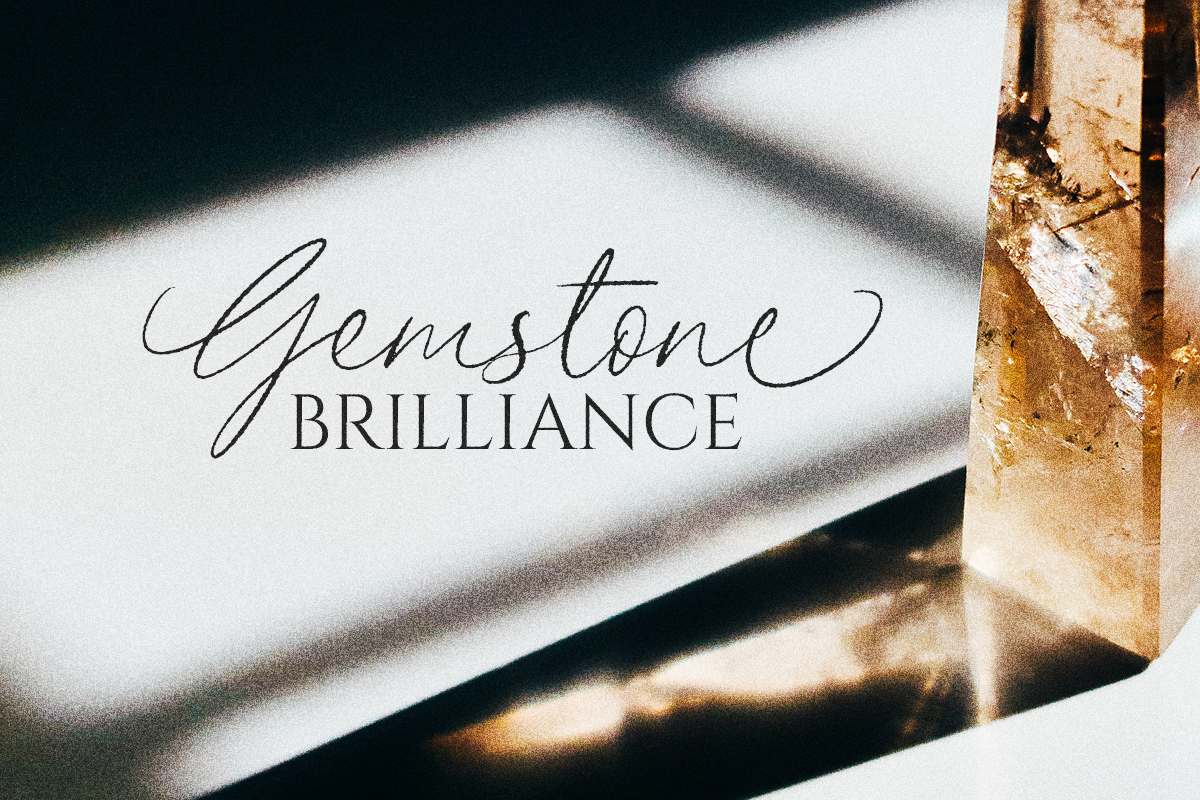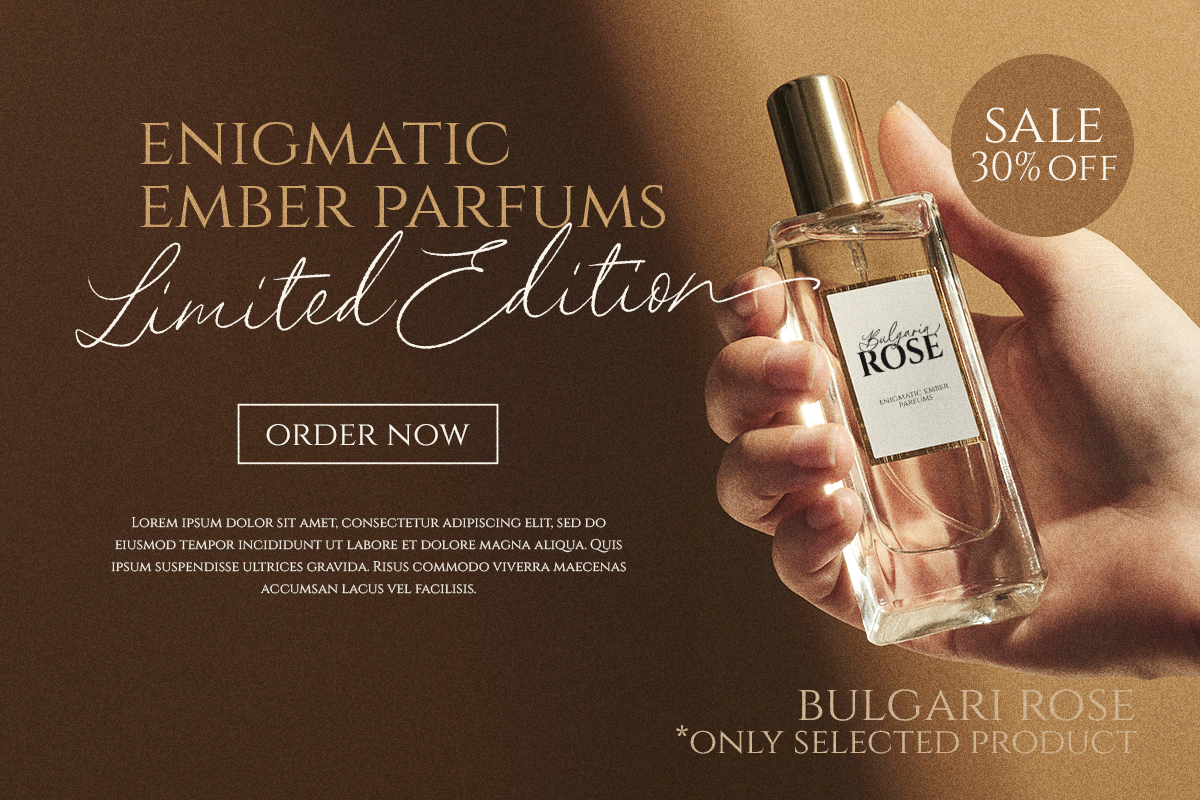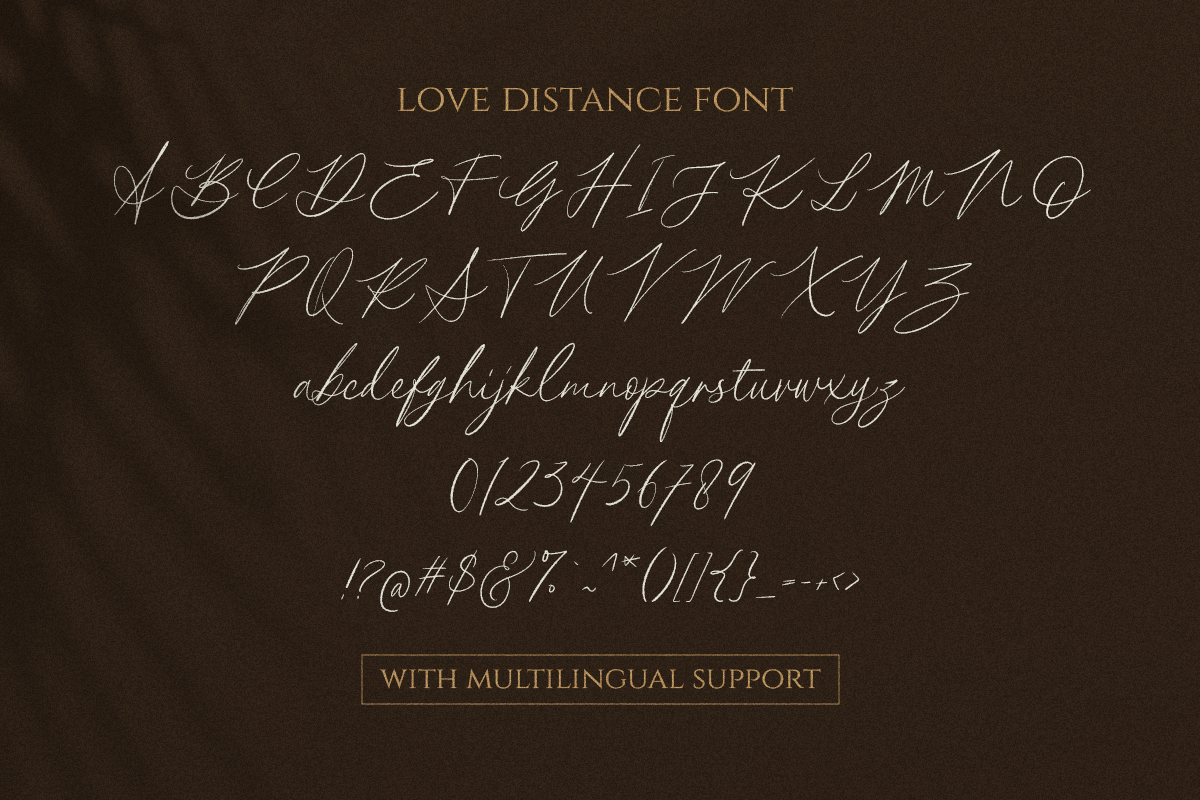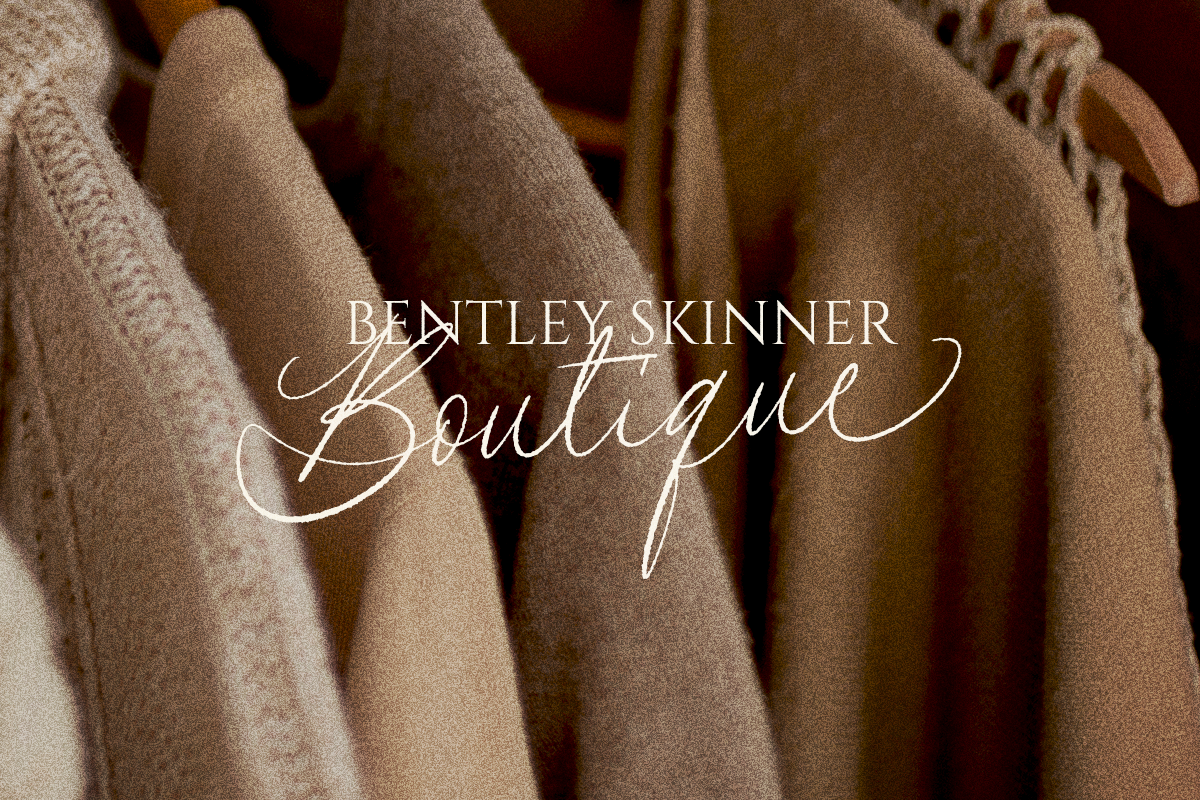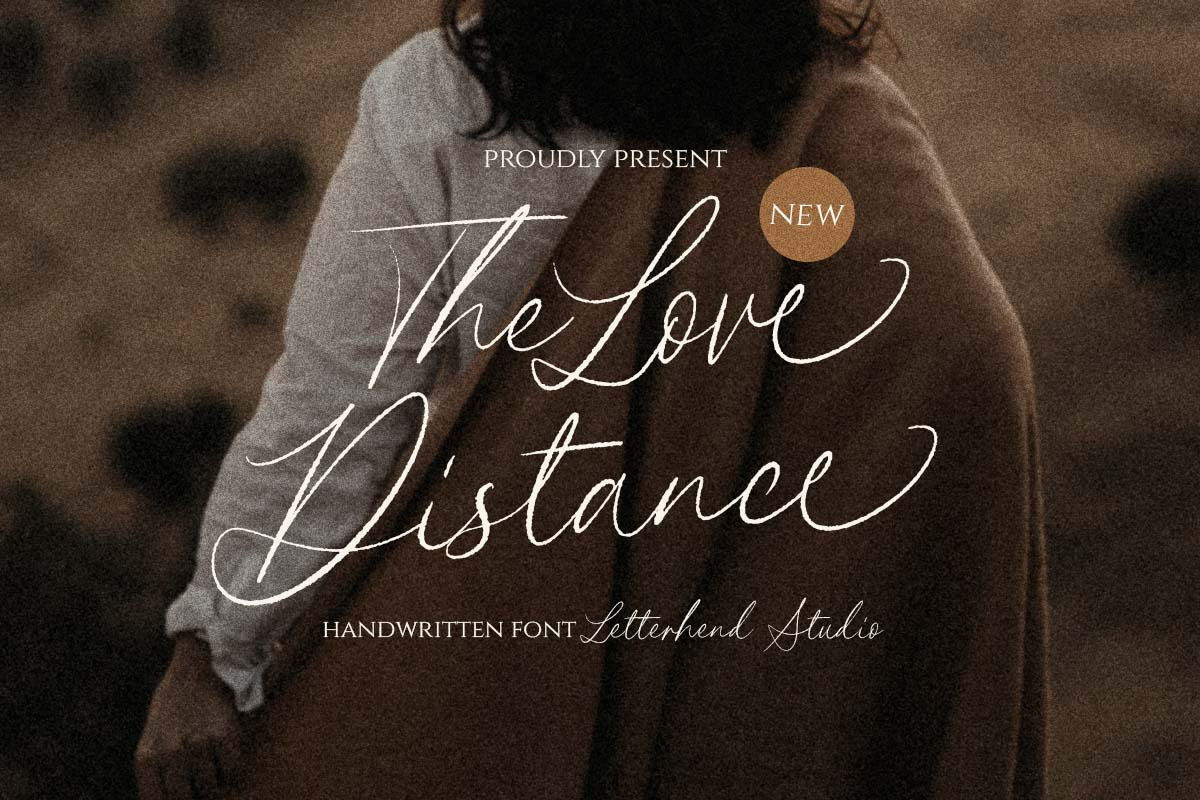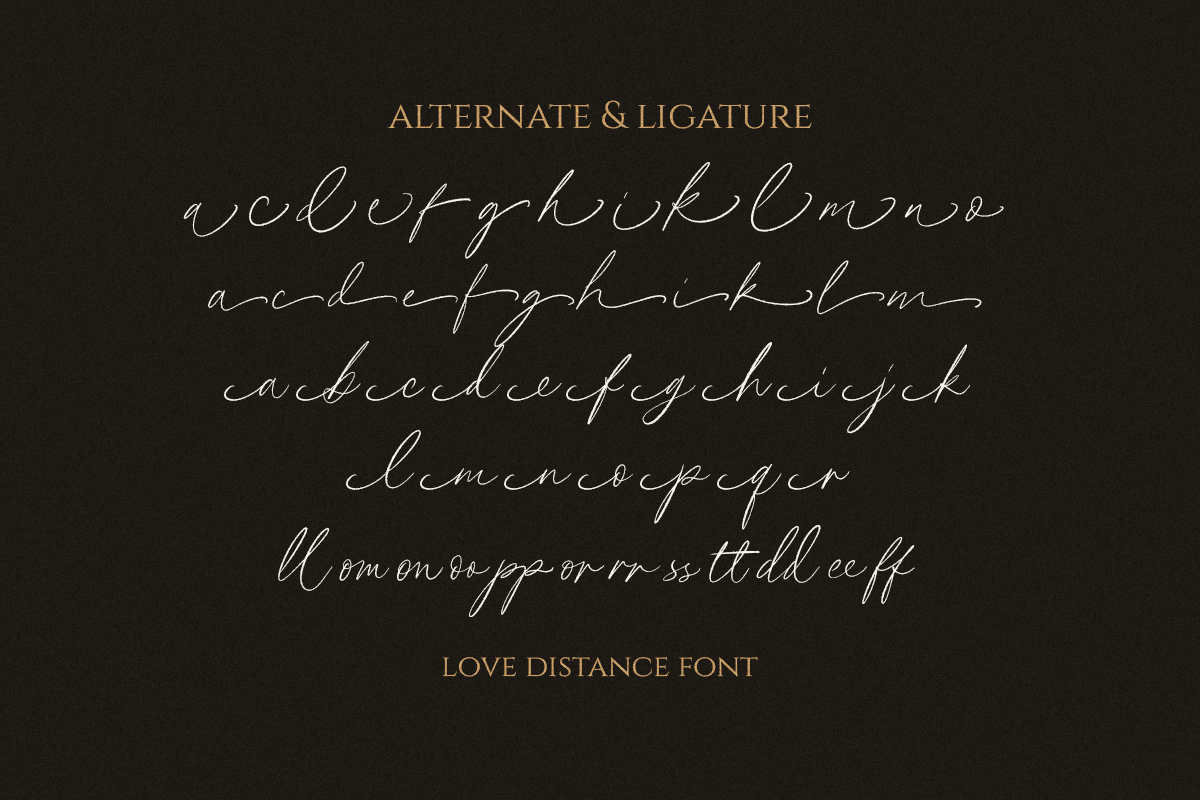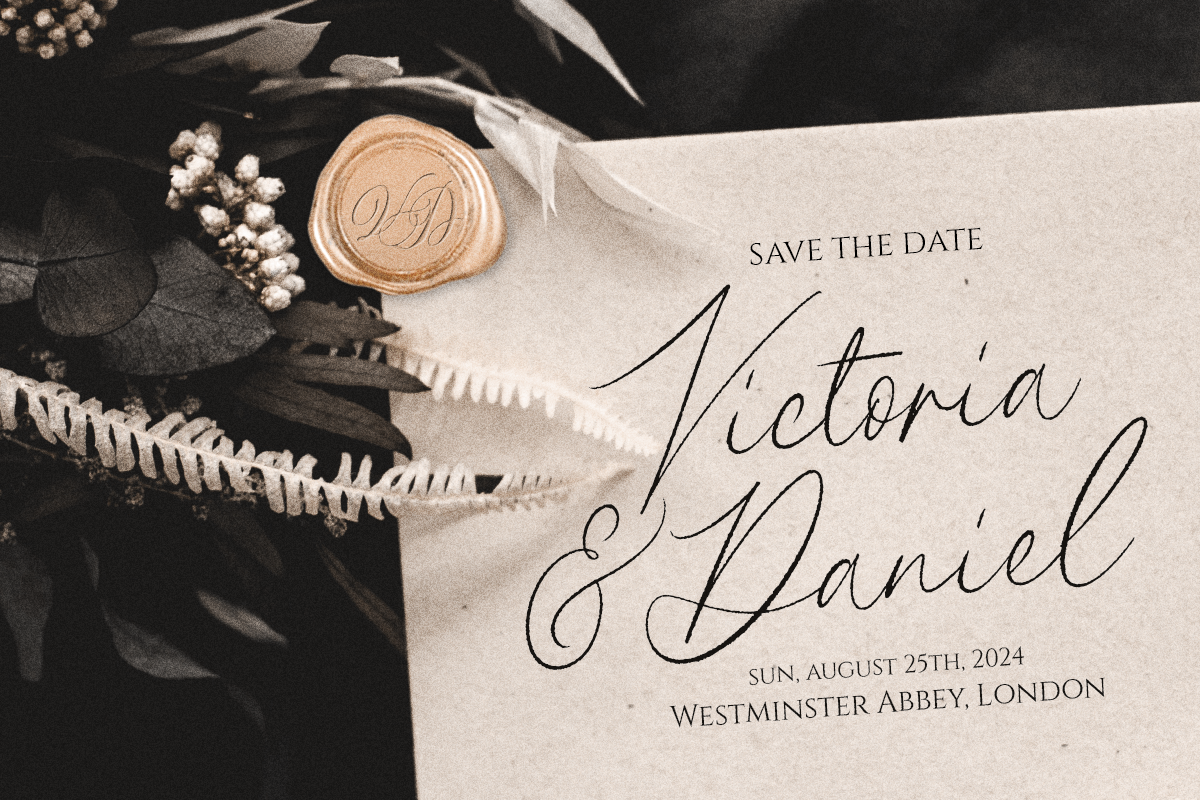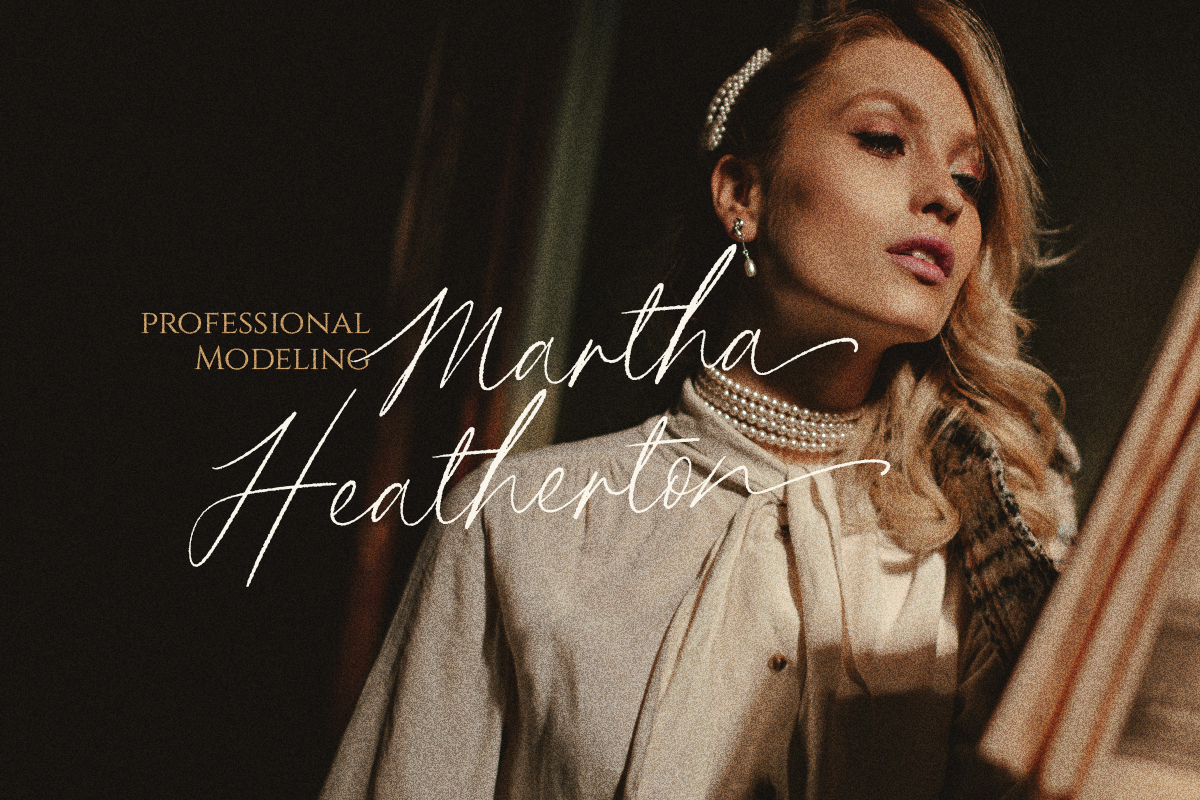
The Love Distance - Handwritten Font
The Love Distance is a beautiful handwritten script with organic style. This type of font perfectly made to be applied especially in logo, and the other various formal forms such as invitations, labels, logos, magazines, books, greeting / wedding cards, packaging, fashion, make up, stationery, novels, labels or any type of advertising purpose.